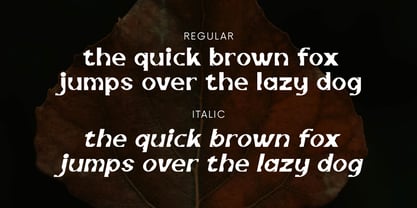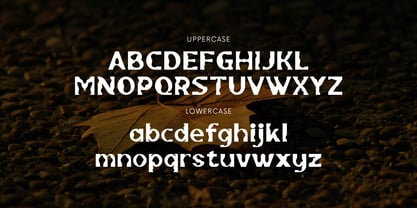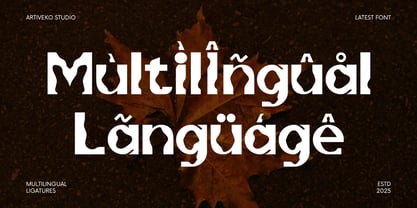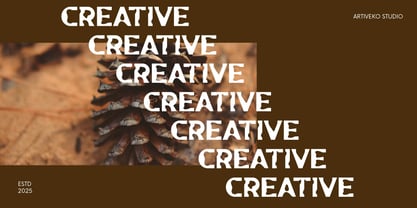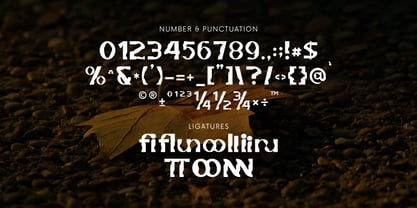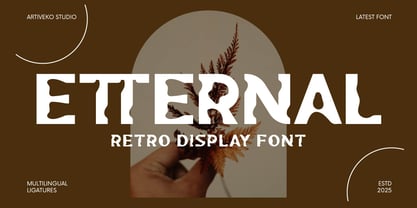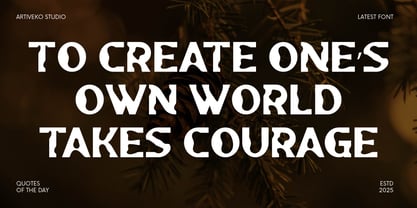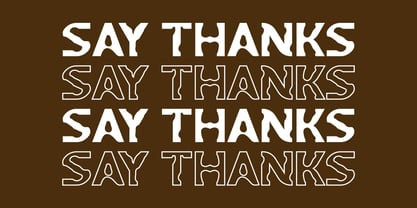
Etternal
by Artiveko
The Etternal Font Family was designed by Iwan Alwan and published by Artiveko. Etternal contains 2 styles and family package options. More about this family
Etternal is a retro display font inspired by vintage aesthetics with a modern twist. Its bold curves, playful proportions, and nostalgic flair make it perfect for posters, packaging, logos, and editorial titles. Equipped with multilingual support, ligatures, and alternates, Etternal brings timeless character and charm to any design project that craves a touch of retro elegance.
Designers: Iwan Alwan
Foundry: Artiveko